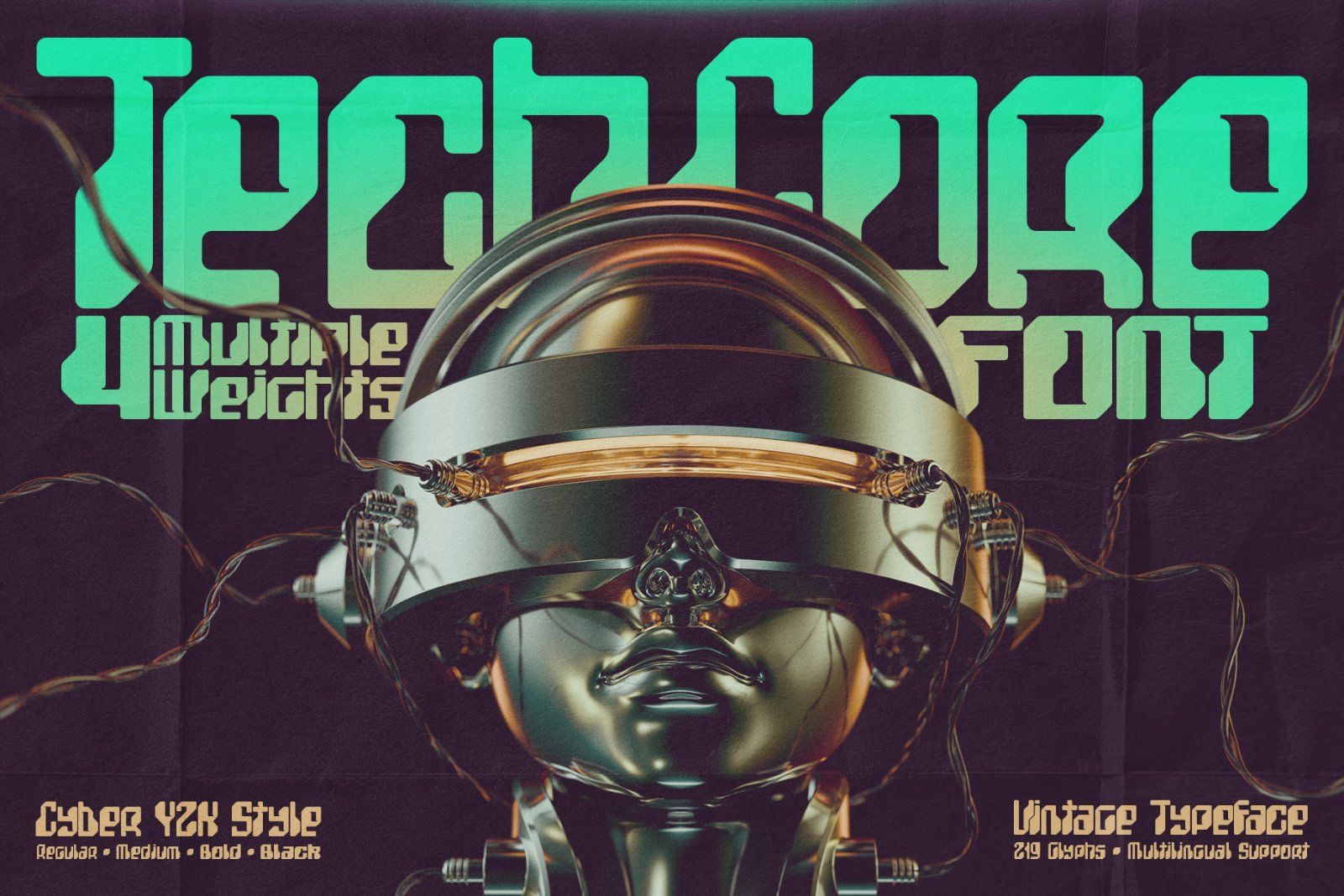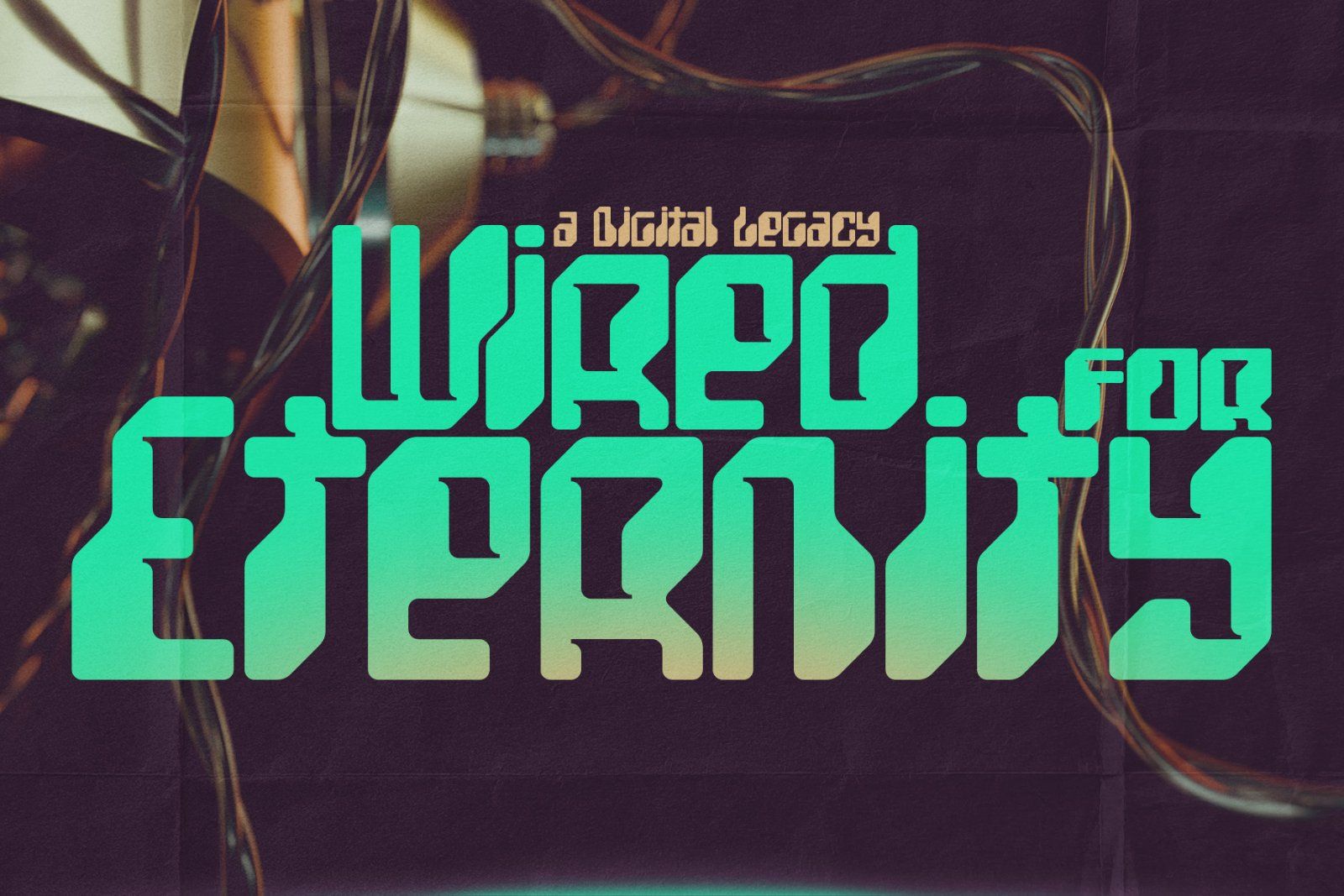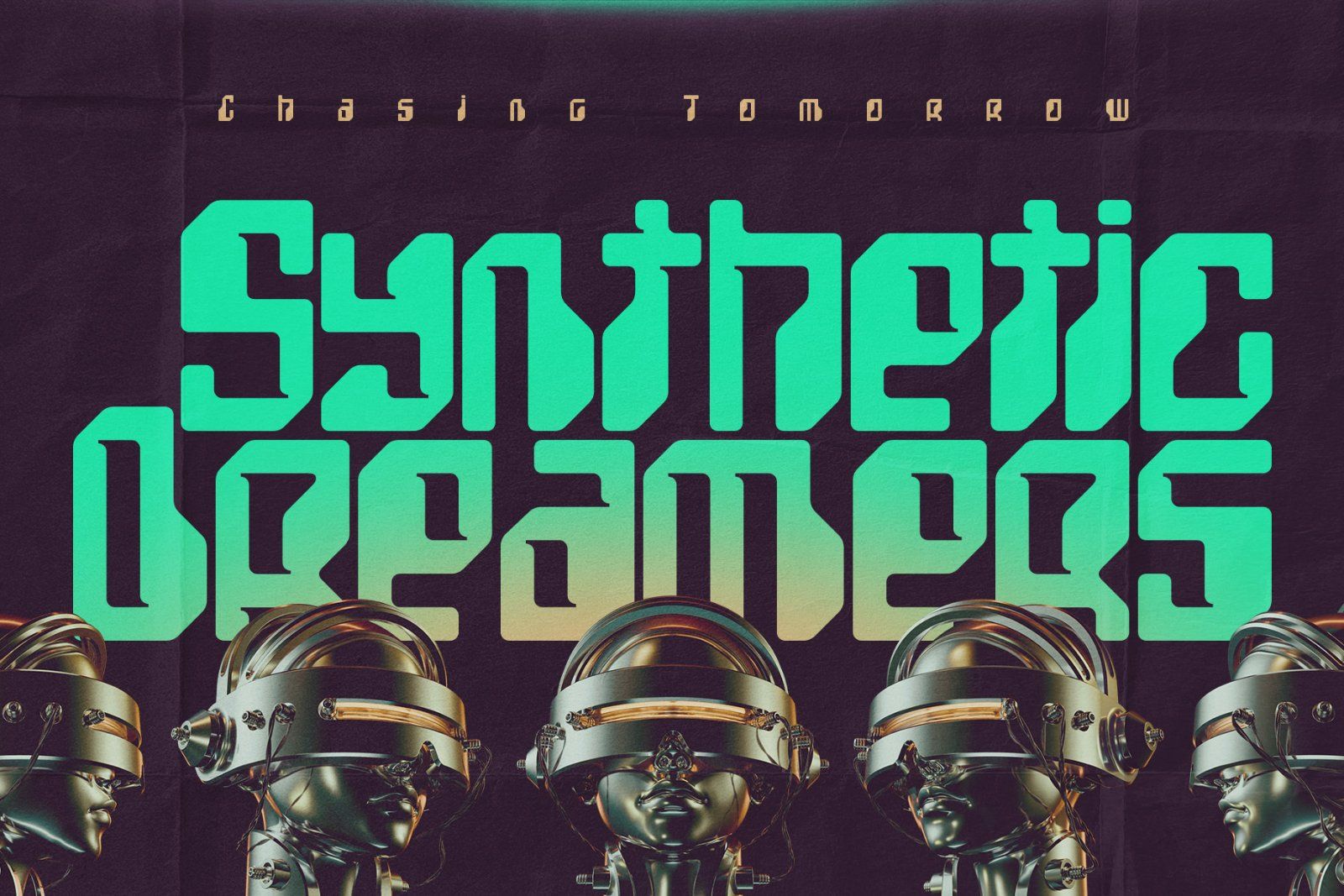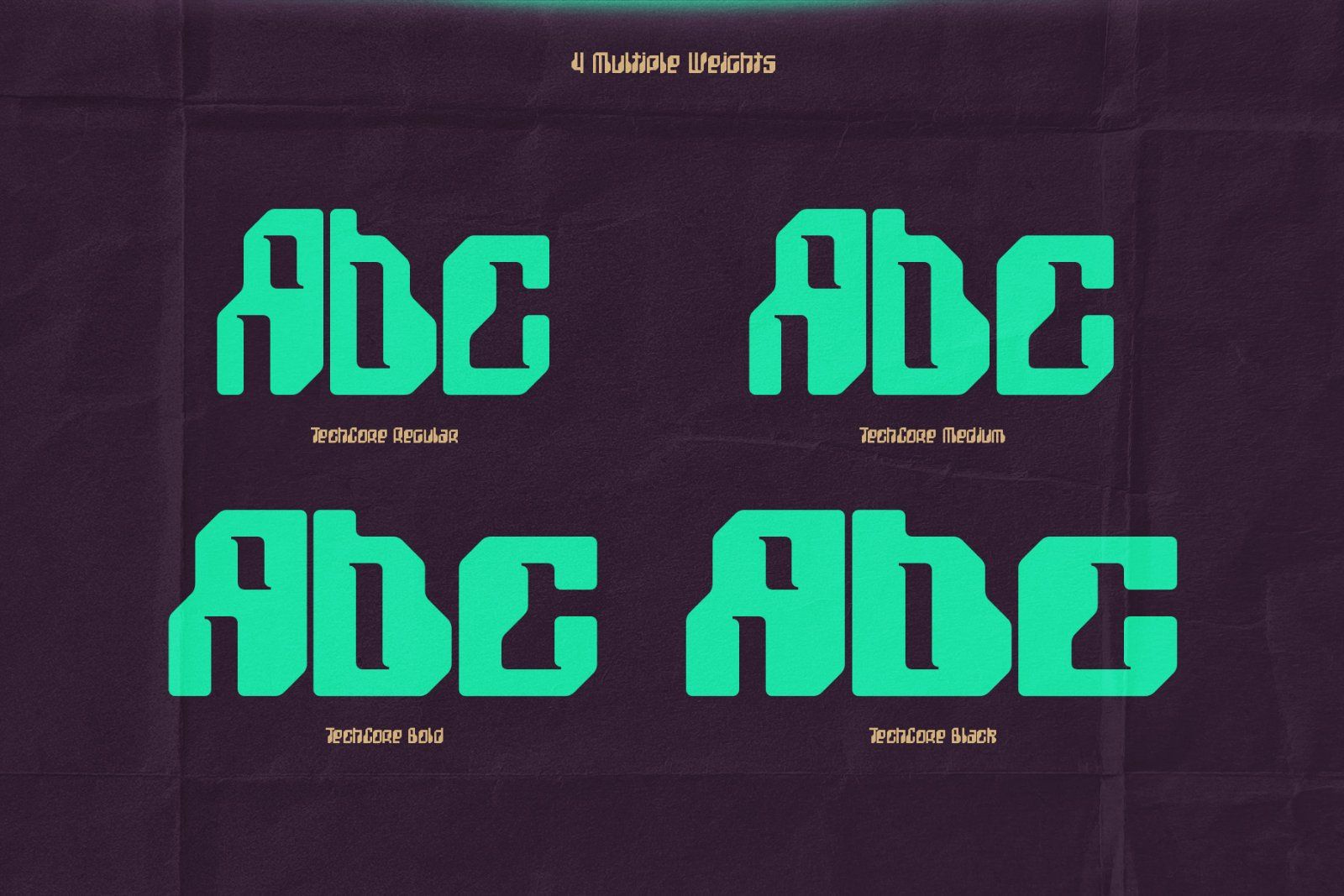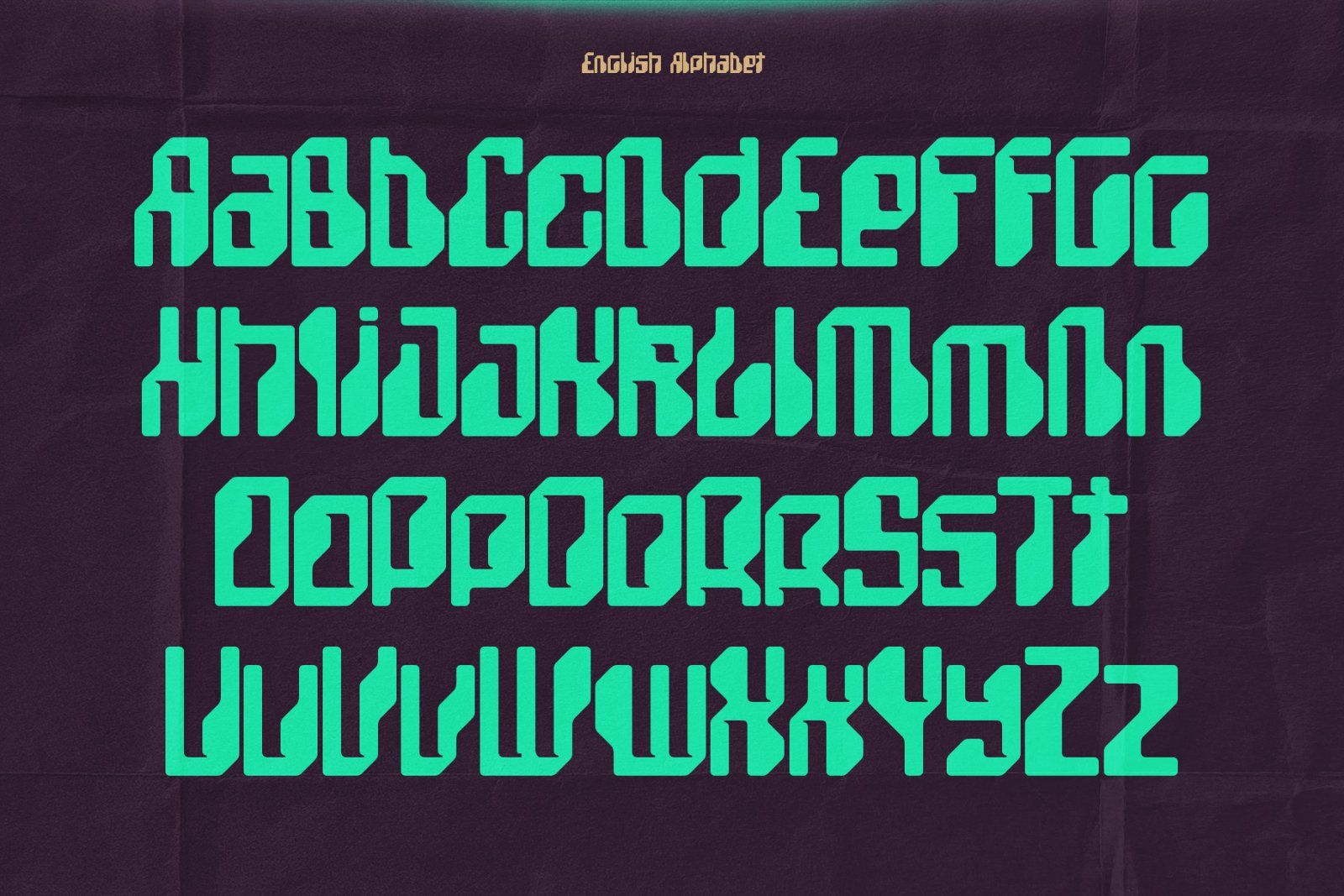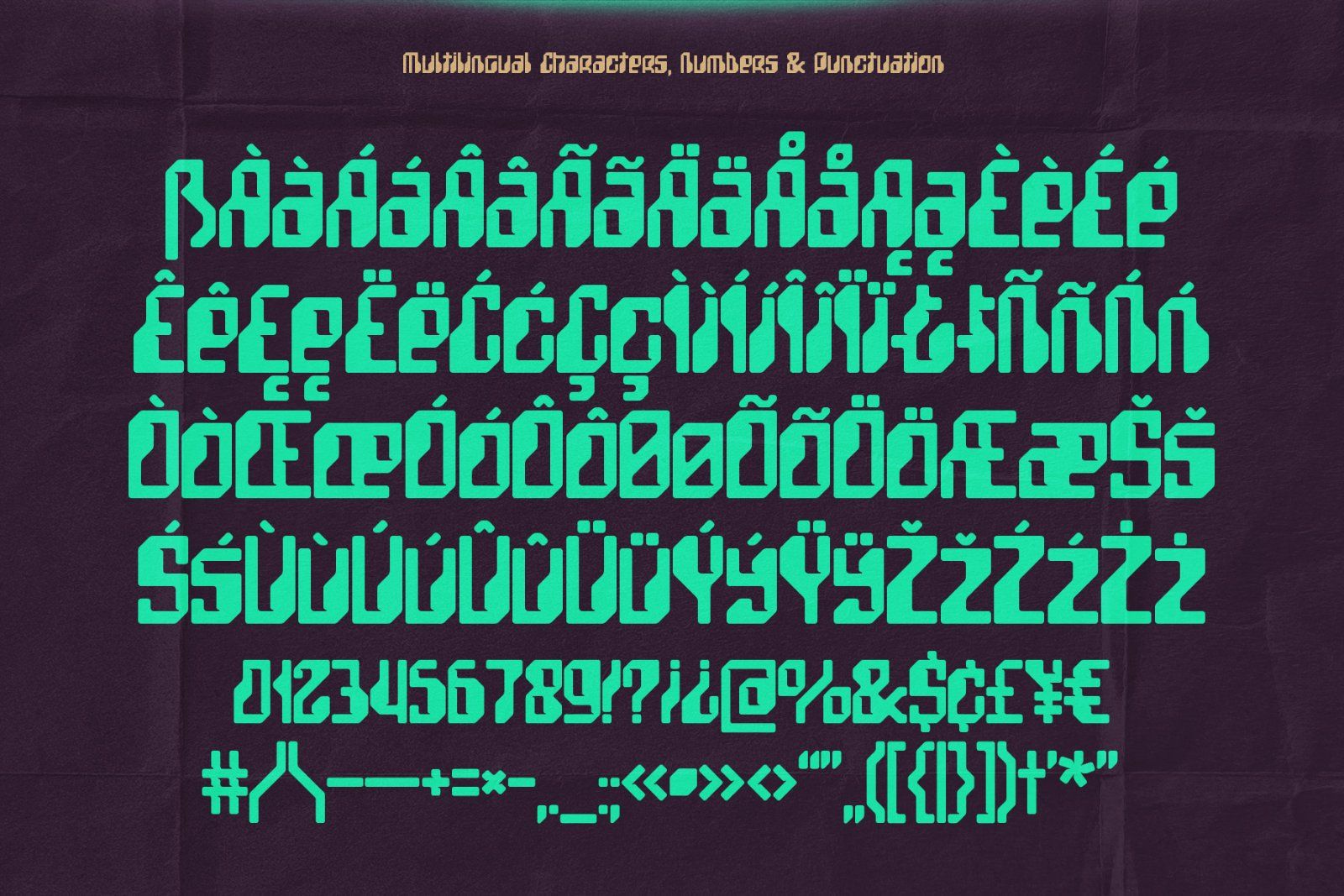
Hi! Introducing a old-school font set named TechCore. This cyber-vintage typeface fuses retro computer aesthetics with futuristic robotic flair, making it perfect for bold graphic designs. Inspired by early ages circuits, and classic arcade vibes, it brings a unique balance of nostalgia and digital edge to your projects.
The TechCore family includes four weights: Regular, Medium, Bold, Black. Each font contains 219 glyphs and supports multiple languages — check the screenshot to view the full character set!